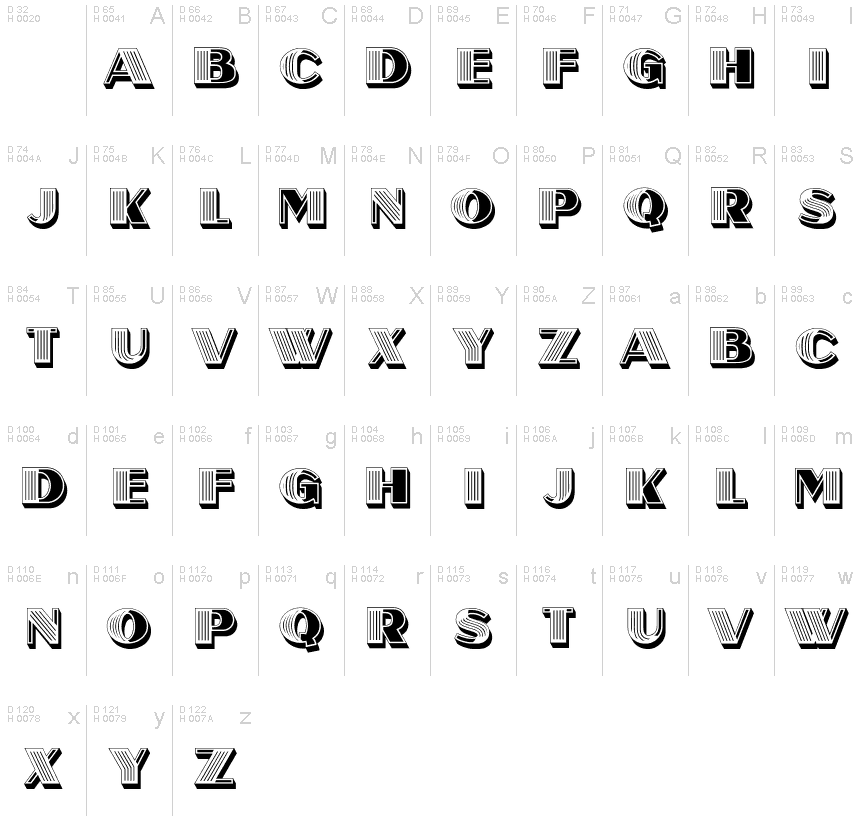
Overhead Rustique Regular
Overhead Rustique font is a decorative retro typeface designed by Vladimir Nikolic.
It comes in Regular, Hollow, Rustique, Rustique Filled and Abstract variant!